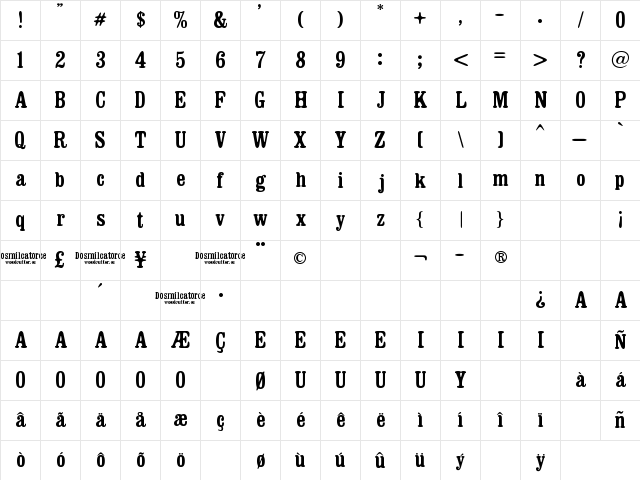
Dosmilcatorce Regular
Design Context for Dosmilcatorce
Dosmilcatorce is a composed and adaptable typeface that performs quietly and consistently across a wide range of design contexts.